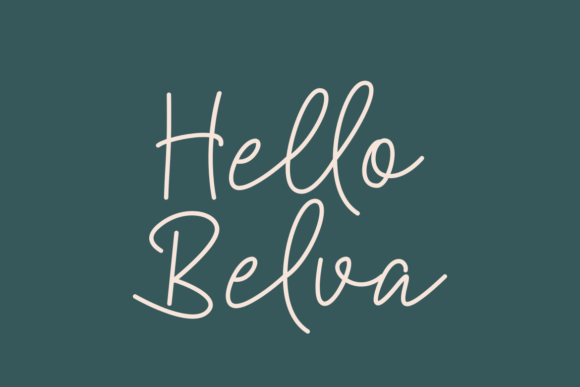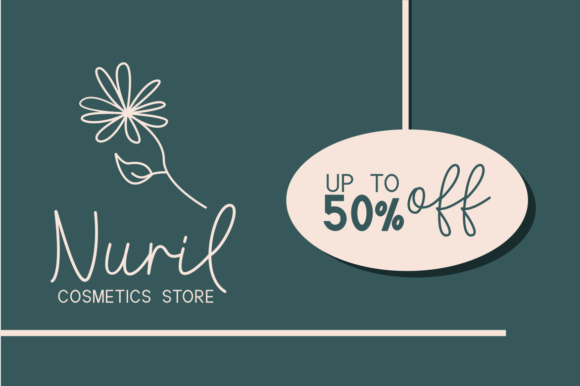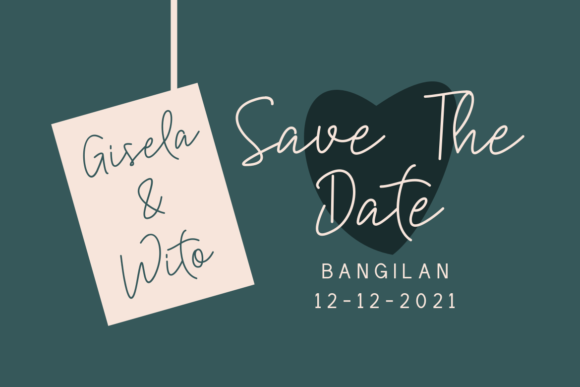
Introduction to Meflin Script Font
Have you ever been brainstorming ideas for a creative project and suddenly, the perfect font pops into your head, elevating your concept from ordinary to extraordinary? That’s exactly what happened when I stumbled upon the enchanting Meflin Script Font. Its delicate curves and whimsical flair immediately captured my imagination, and I knew I had to share it with fellow designers and creatives.
As a valuable design resource, Meflin Script Font offers a level of elegance and sophistication that’s hard to resist. Whether you’re working on a high-quality project or simply looking for a free download to spice up your social media graphics, this font is sure to deliver. Its transparent background and versatility make it an ideal choice for a wide range of creative endeavors, from Instagram posts to DIY crafts.
With Meflin Script Font, you’ll be able to add a touch of magic to any project, making it truly stand out from the crowd. In this article, we’ll delve into the world of this captivating font, exploring its features, benefits, and ways to use it in your next creative project.
Key Features of Meflin Script Font
- High-quality, elegant script font ideal for creative projects requiring a touch of sophistication.
- Comes with transparent background, allowing for seamless integration with various design elements.
- Includes 6 different font styles to cater to diverse design needs and preferences.
- Perfect for use in wedding invitations, greeting cards, and other creative projects where a beautiful script font is required.
Honest Review: Meflin Script Font
I recently had the opportunity to work with the Meflin Script Font, and I must say it’s been a game-changer for my creative projects. ✨ The level of detail and intricacy in this font is truly impressive, making it a great design resource for anyone looking to add a touch of elegance to their work.
One of the standout features of Meflin Script Font is its high quality, which translates to a seamless free download experience. The transparent background and versatility of the font make it an excellent choice for a wide range of creative endeavors, from branding and marketing materials to digital art and more.
- Transparent background for easy integration into designs
- Excellent choice for branding, marketing, and digital art
- May not be suitable for projects requiring a more modern or minimalist aesthetic
- Some users may find the font too ornate or over-the-top
Overall, I’m thoroughly impressed with the Meflin Script Font and would highly recommend it to anyone looking to add a touch of sophistication to their design work. Its high quality and versatility make it a valuable design resource that’s sure to please even the most discerning designers.
Tips for Getting the Most Out of Meflin Script Font
For the best results, use the Meflin Script Font in conjunction with a high-contrast background to make your text stand out. Experiment with different font sizes and styles to add visual interest to your design.
The Meflin Script Font is ideal for creating elegant and sophisticated designs, making it perfect for wedding invitations, birthday cards, and other creative projects that require a touch of class. Its transparent background feature also makes it suitable for use in logo designs and branding materials.
Q: Does the Meflin Script Font have a transparent background?
Yes, the Meflin Script Font is a transparent font, allowing you to easily overlay it on images or other design elements. This feature makes it a versatile design resource for various creative projects.